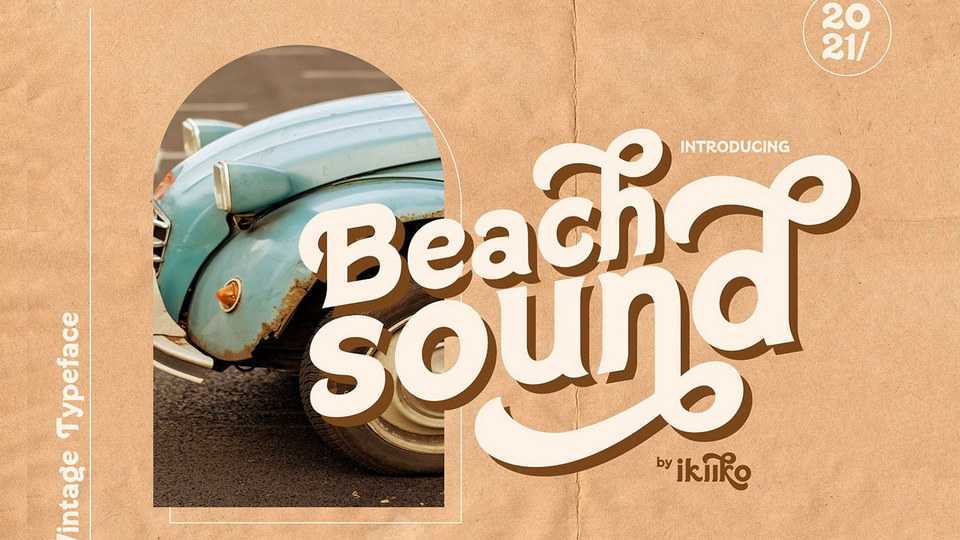
Download Beach Sound font, a vintage stylish typeface that has both modern and retro look. Beach Sound is the perfect one to create layout design in 60s or 70s design projects.
Designer: ikiiko